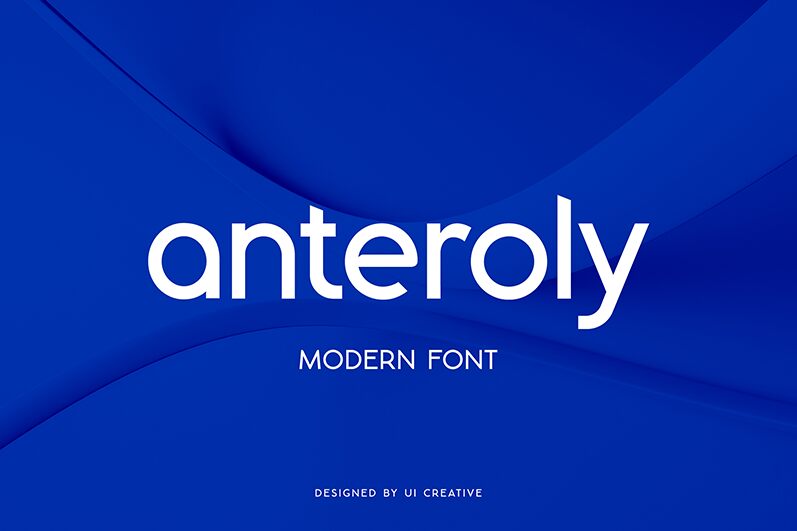
anteroly
Anteroly font is made by UI Creative with the goal of being useful for whatever project you need it for. This geometric sans-serif font family creates a friendly mood and keeps every letter clean and simple. Because this font has moderate contrast, open counters, dynamic Italics and spacing that is just right. It's modern and bold but never steals the spotlight from your work.
Honestly this is a font made to be used anywhere! Anteroly works well for advertising, branding, packaging or anywhere you need better impact with your typography. Corporate identity or various business-related design works can benefit from it too!